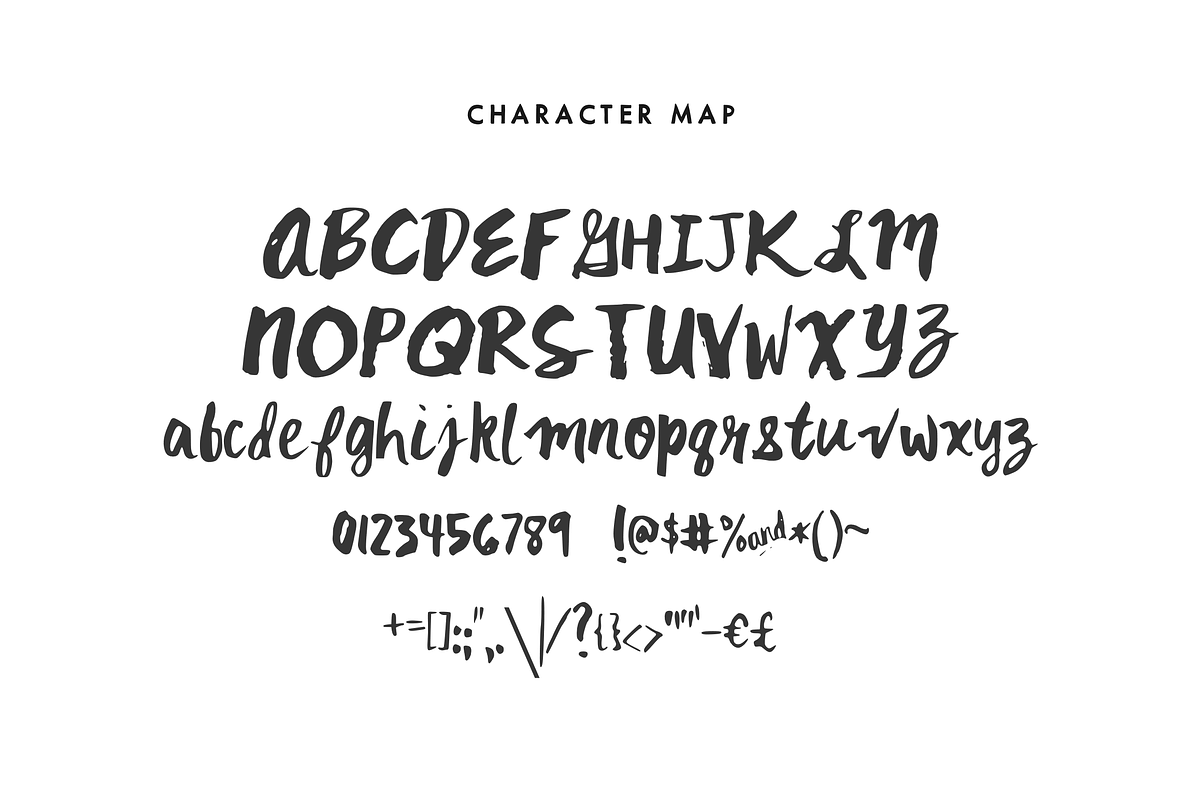
Kitsch — A Kitschy Handwritten Font
Kitsch — A Kitschy Handwritten Font by Mix Fonts is a font selected for branding, posters, packaging, typography.
Why Kitsch — A Kitschy Handwritten Font is worth a look
Kitsch — A Kitschy Handwritten Font by Mix Fonts fits naturally into Branding, posters, packaging, typography.